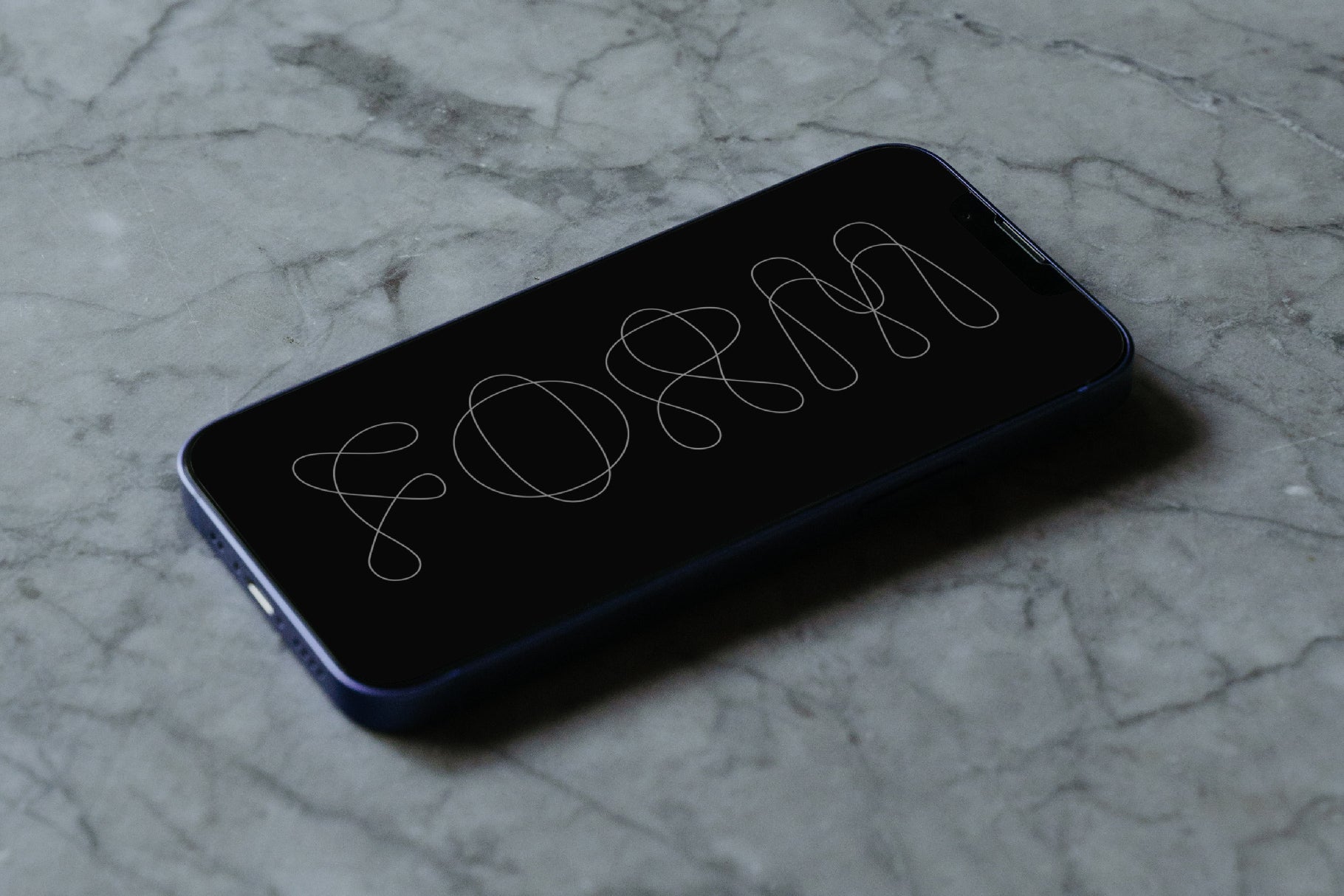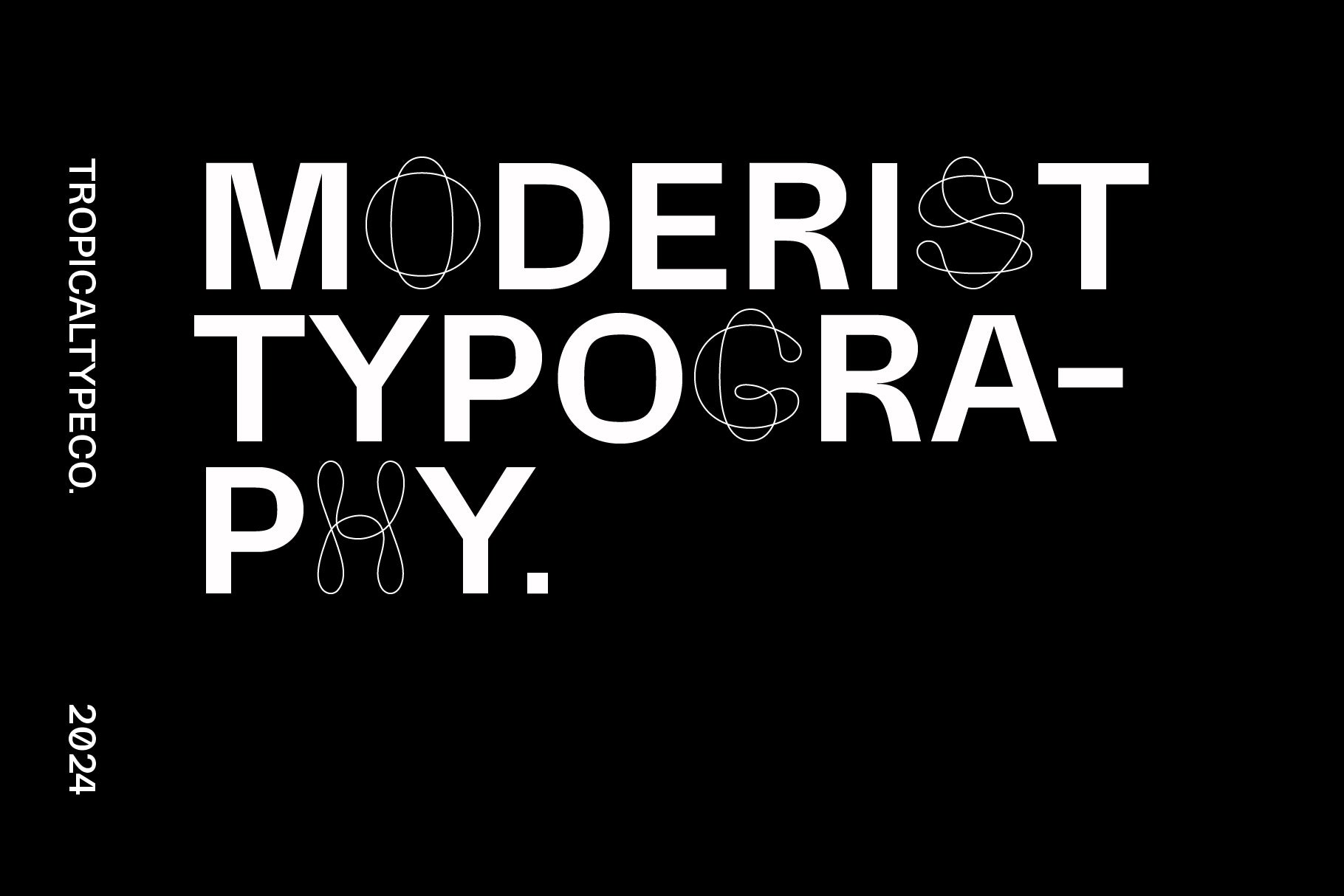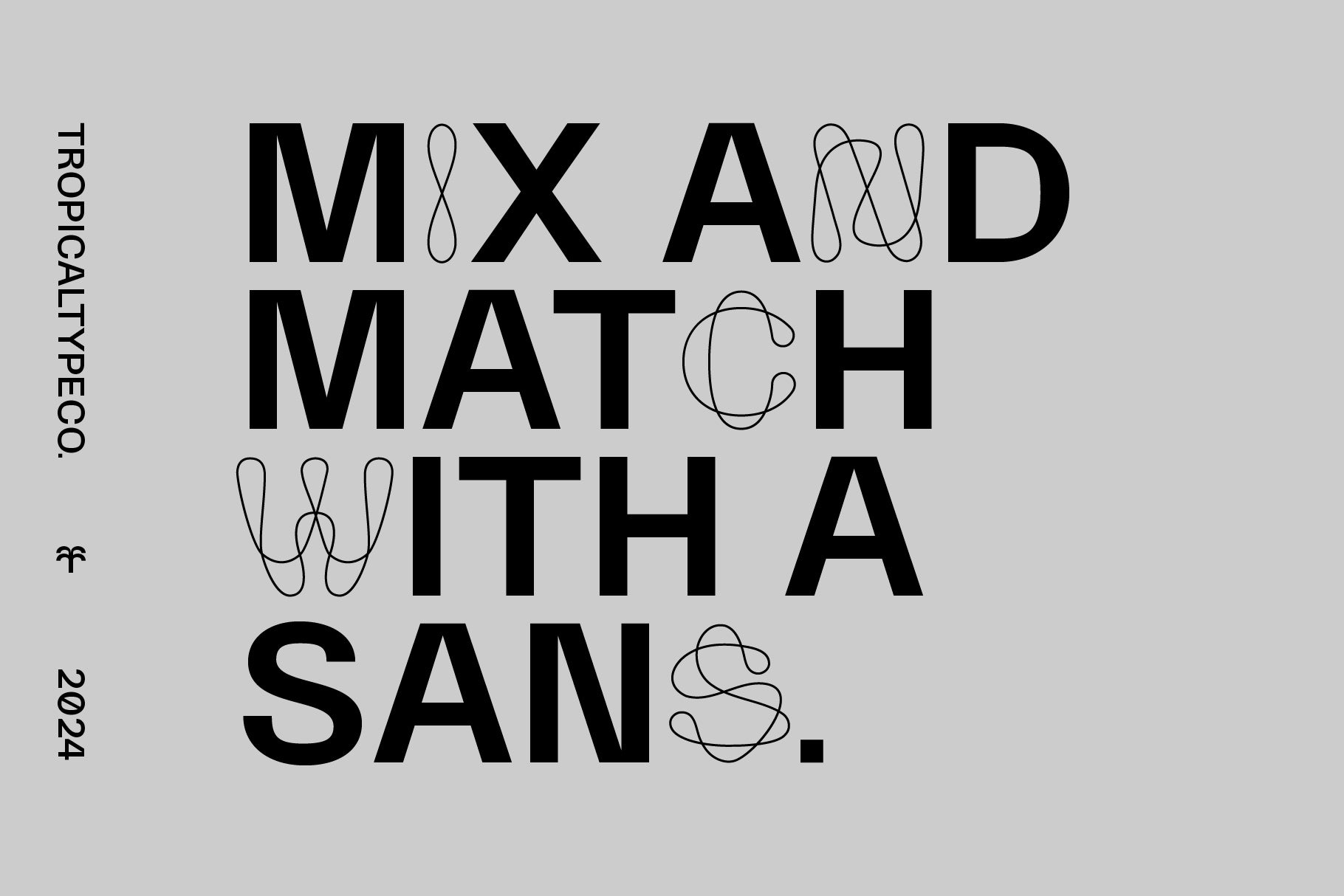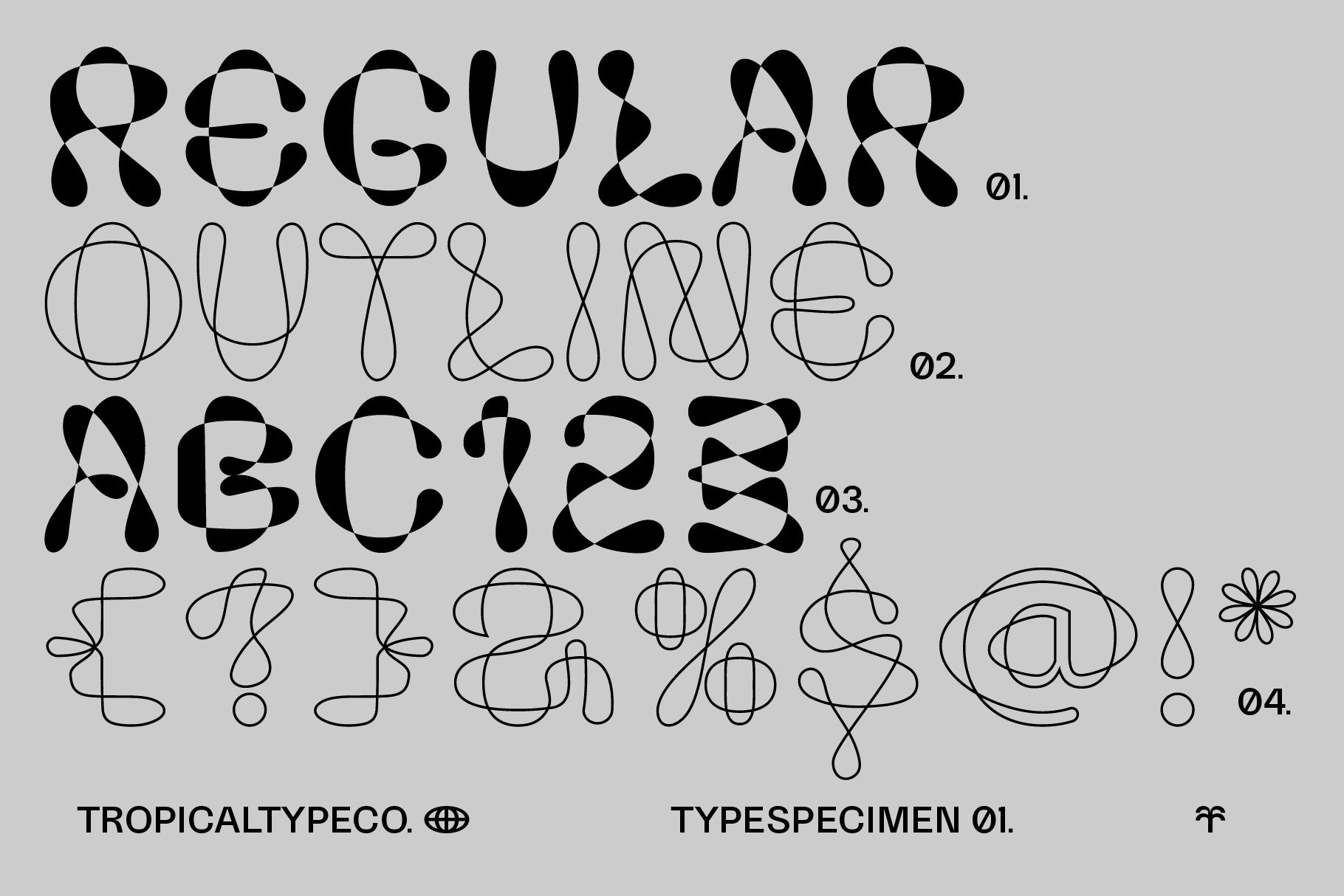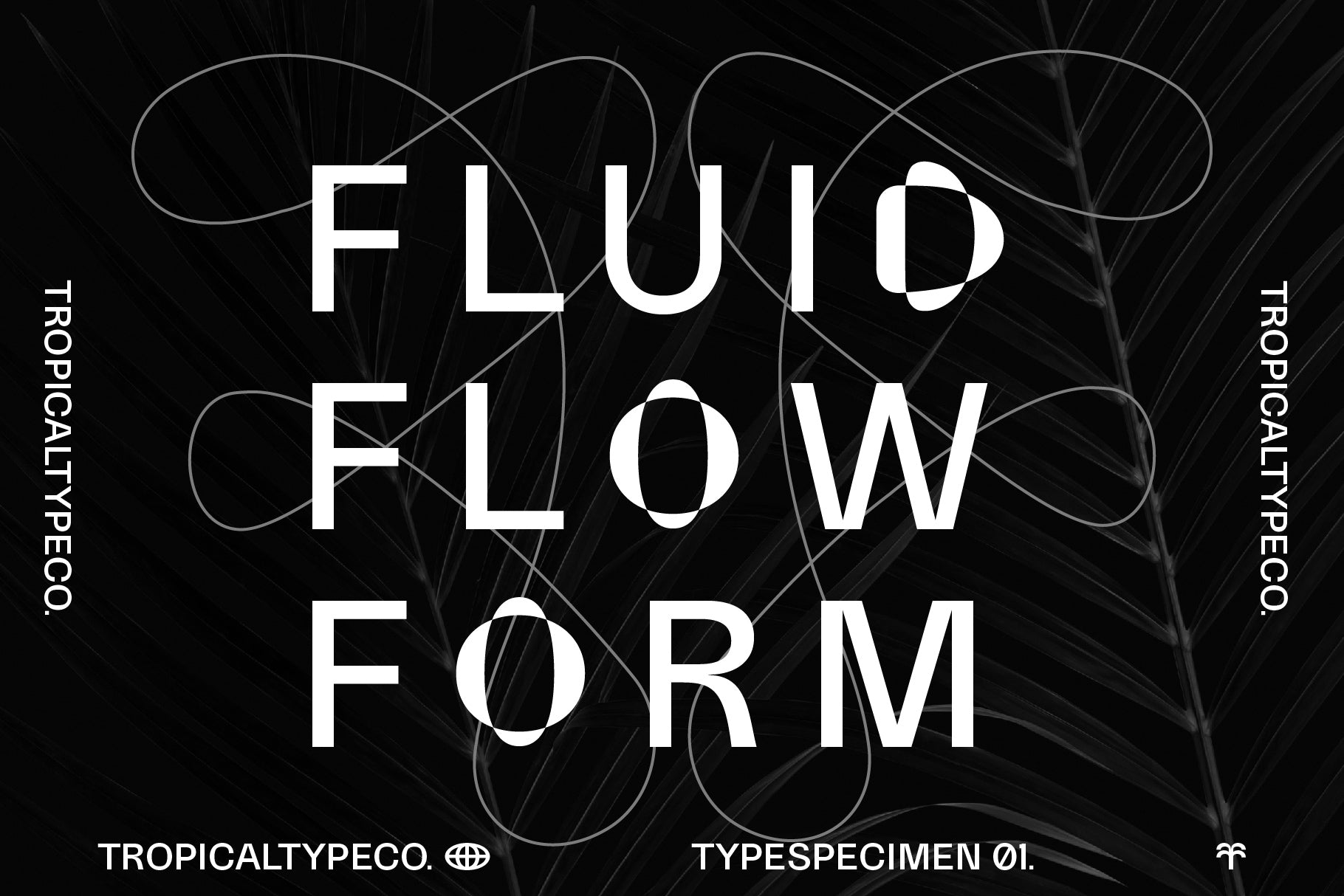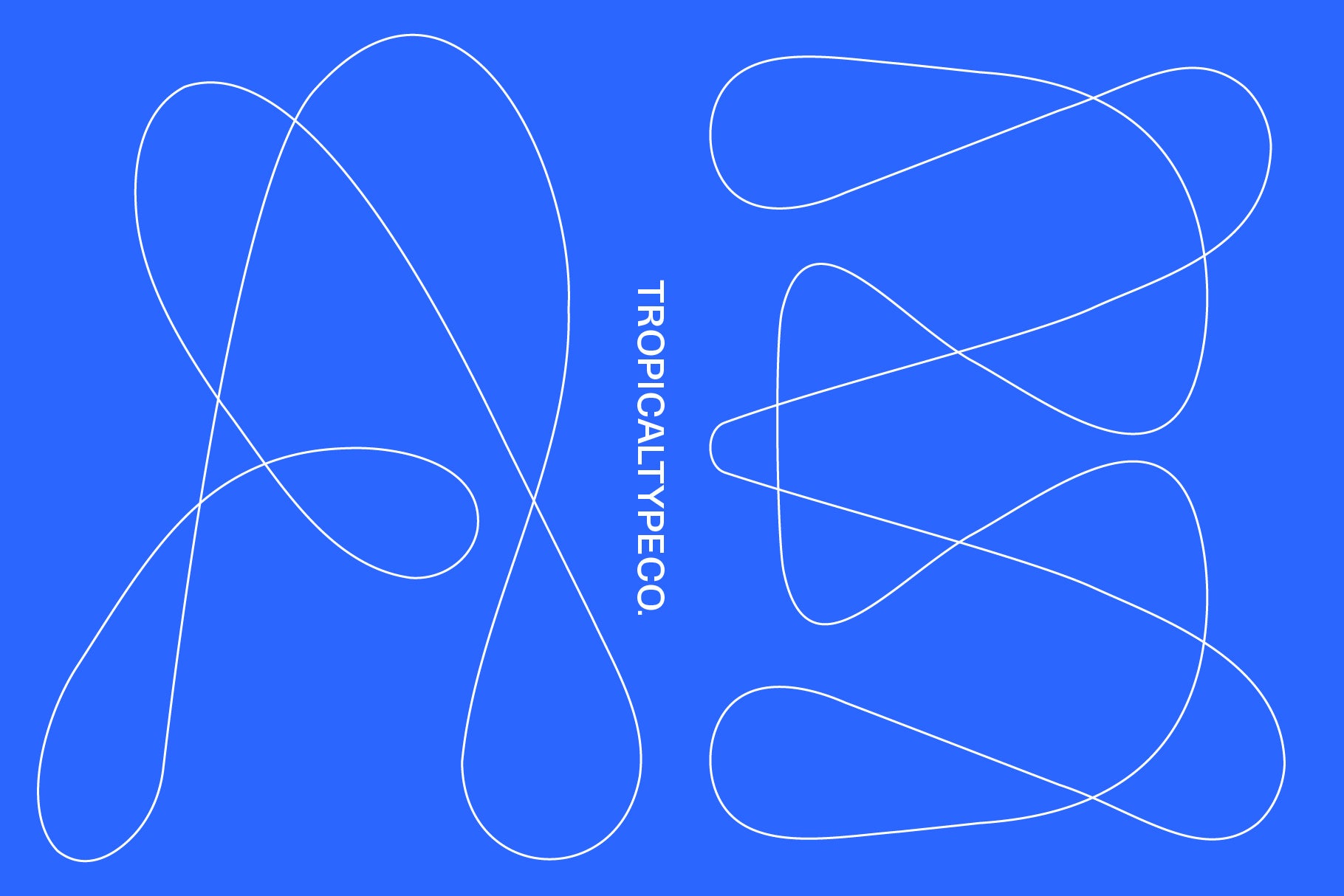
Flowstate
Flowstate is a smooth flowing experimental typeface. Mix and match with a clean sans (like Honeychrome variable, pictured in previews) or go solo for a futuristic vibe.
Regular and outlined versions included. Enjoy.
Non English glyphs included:
Ą Á  À Ä Å Ã Æ Ć Ç Ę É Ê È Ë Í Î Ì Ï Ł Ń Ñ Ó Ô Ò Ö Õ Ø Œ Ś Š Ú Û Ù Ü Ý Ÿ Ź Ż